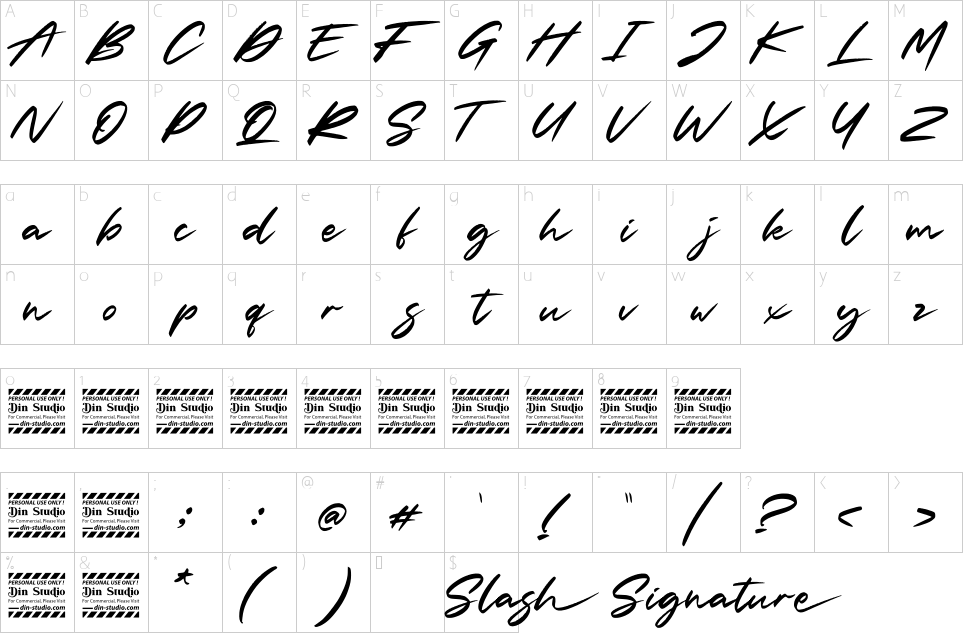
Slash Signature Font
Slash Signature Font - Web slash signature is a modern handwritten font. With a classy and natural handwritten style, it brings a classy and beautiful typeface.
With a classy and natural handwritten style, it brings a classy and beautiful typeface. Web slash signature is a modern handwritten font.
Web slash signature is a modern handwritten font. With a classy and natural handwritten style, it brings a classy and beautiful typeface.
Slash Signature Font
With a classy and natural handwritten style, it brings a classy and beautiful typeface. Web slash signature is a modern handwritten font.
Web slash signature is a modern handwritten font. With a classy and natural handwritten style, it brings a classy and beautiful typeface.
With a classy and natural handwritten style, it brings a classy and beautiful typeface. Web slash signature is a modern handwritten font.
Web slash signature is a modern handwritten font. With a classy and natural handwritten style, it brings a classy and beautiful typeface.
With a classy and natural handwritten style, it brings a classy and beautiful typeface. Web slash signature is a modern handwritten font.
With A Classy And Natural Handwritten Style, It Brings A Classy And Beautiful Typeface.
Web slash signature is a modern handwritten font.